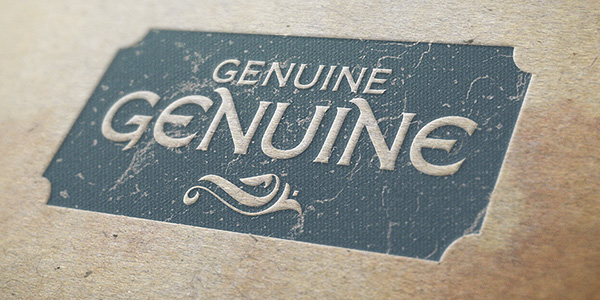
A Bolyar was a member of the highest rank of the feudal Bulgaria - second only to the ruling Tsar (king). This font is closely related to its name origin - we believe we've created a royal, majestic and elegant typeface. We've developed a wide set of alternates, swashes, ligatures and ornaments so that this font will be able to face your needs from simple body type to a strong dominating headline or even logo.
We do enjoy this new font and we believe it would be very useful to a large part of package and label designers as it would be excellent choice for everyone designing a letterhead or a newspaper headline.
Designers:
Vassil Kateliev & Jordan Jelev for the Fontmaker Type Foundry, 2012